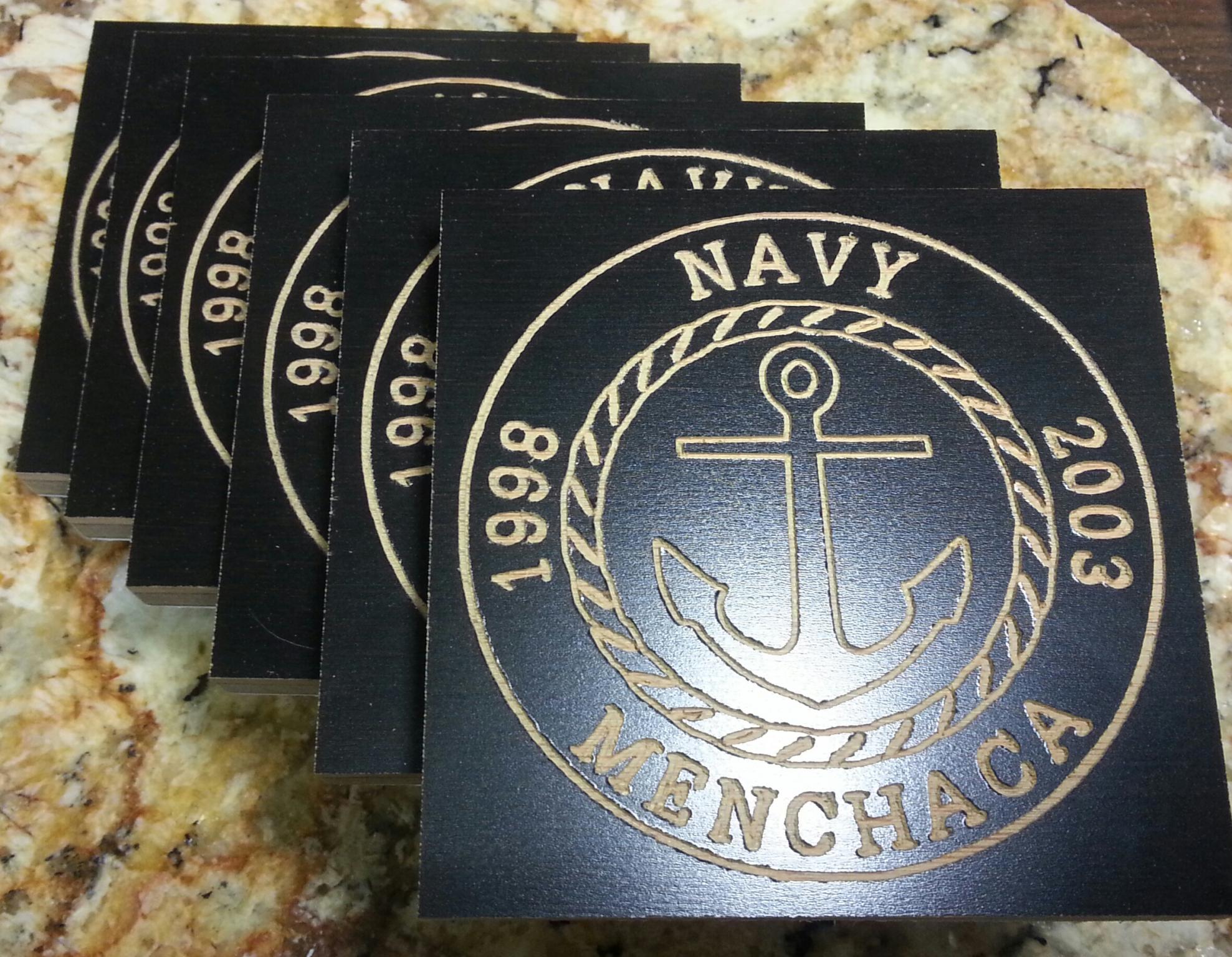
thousands of fonts to choose from with preview , i think the rounded ones are what you search for, you could browse them all untill you find what you are looking for:
3. Oh man inkscape is great for fonts. Its openSource.
You can fit text to a curve. This allows text around a circle.
After you do "fit text to path", you can also adjust each letter individually for the spacing (kern) or vertical offset. This is good so letters don't touch each other or the circle:
Cambam lets you use any font on the pc, I just tried it last weekend.....I used a pocket then profile operation rather than the engrave option (probably the wrong way, I am just learning this stuff)
CamBam also has a V engrave plugin that can be used with Windows fonts for example, https://www.atelier-des-fougeres.fr/.../Vengrave.html
It also has a plugin to fit text onto a Polyline, https://www.atelier-des-fougeres.fr/...nPolyline.html
There are some single line fonts for engraving here, https://www.atelier-des-fougeres.fr/...tickfonts.html